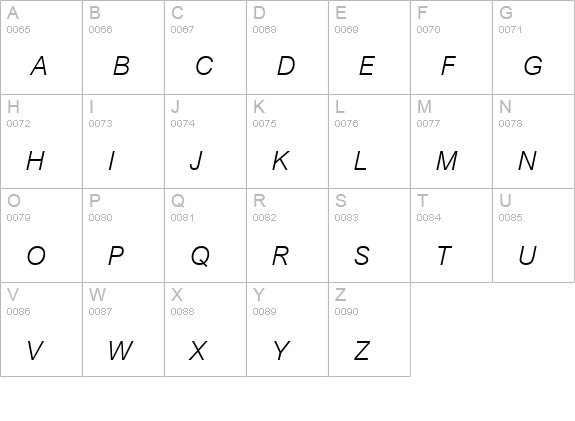
Cordia New Italic Font Details
Cordia New Italic is a distinctive, italic variant in the Cordia typeface family \xE2\x80\x94 well suited to design and typography projects.
Cordia New Italic font is a modern and stylish typeface that exudes elegance and sophistication. Its sleek and flowing italic design adds a touch of flair to any project, making it perfect for use in both digital and print applications. The distinctive curves and delicate strokes of Cordia New Italic font make it a versatile choice for a wide range of design projects, from branding and advertising to editorial and creative endeavors. What sets Cordia New Italic font apart is not only its timeless appeal but also the fact that it is available for free download at FontsMarket.com. This means that you can easily access and use this high-quality font in your projects without any hassle or cost. So whether you're a professional designer looking to add a touch of sophistication to your work or a hobbyist seeking to elevate your creative projects, Cordia New Italic font is the perfect choice for you. Download it for free today and elevate your design game with this exquisite typeface.